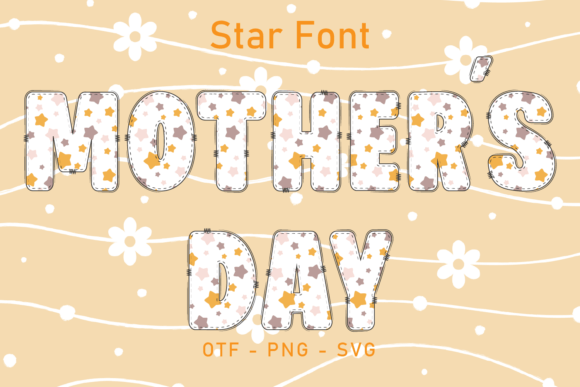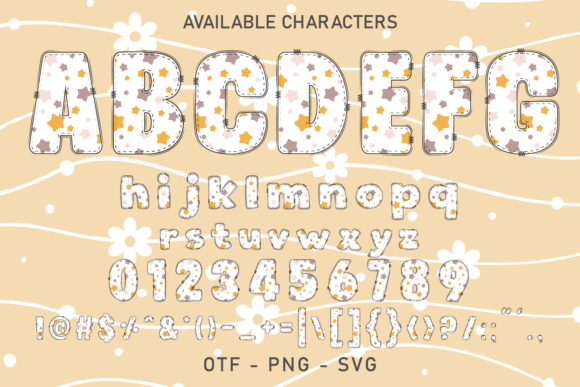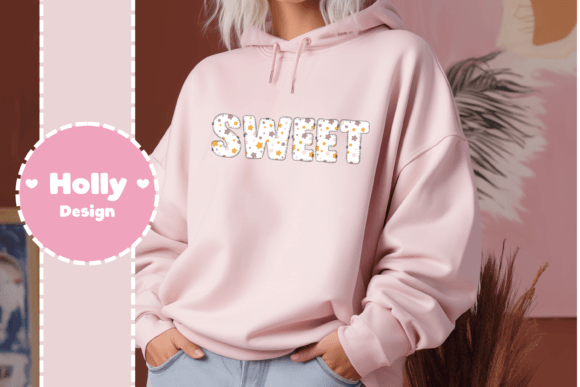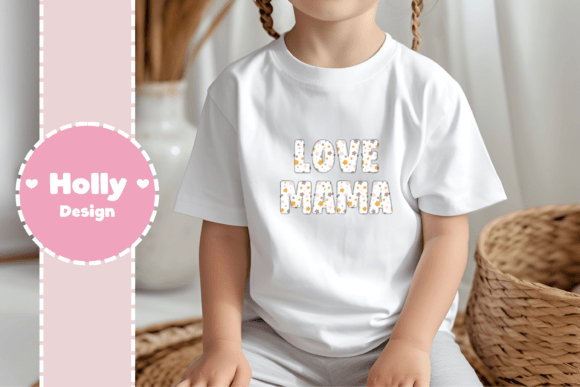
Mother’s Day Star Font
About the Mother’s Day Star Font
Welcome to the world of Mother’s Day Star Font, a typeface that will inspire your next great project. Mother’s Day Star font is a lovely and beautifully designed color font. The font is hand drawn and its letters are full of patterns that represent the day of lovely. Choose from trendy handwritten, display, and decorative styles for invitations, logos, posters, and more.